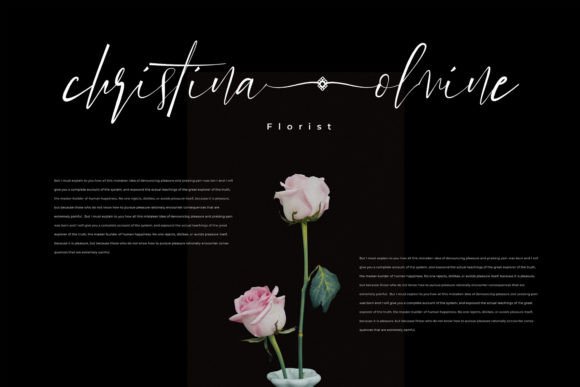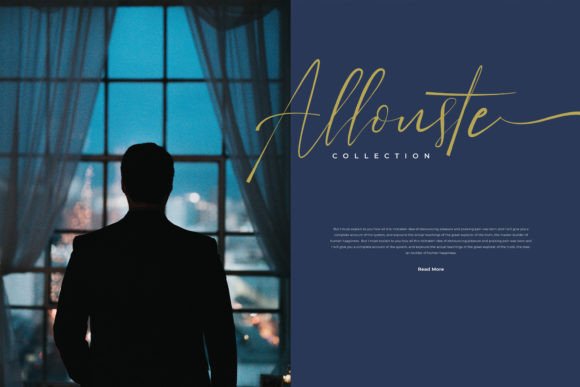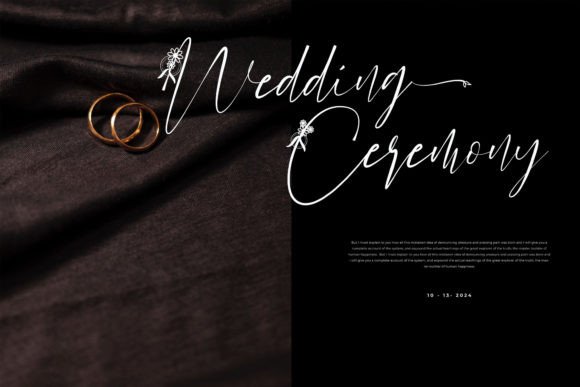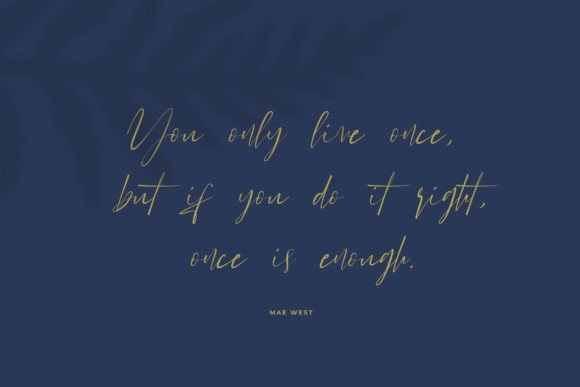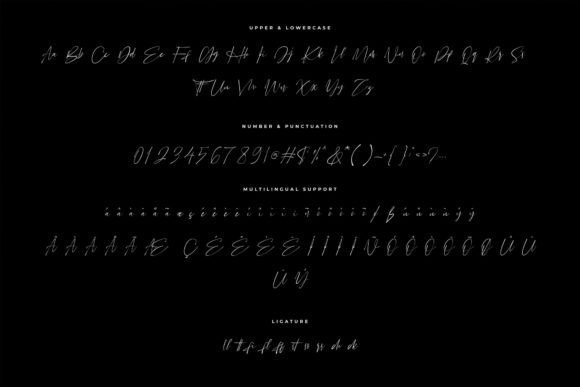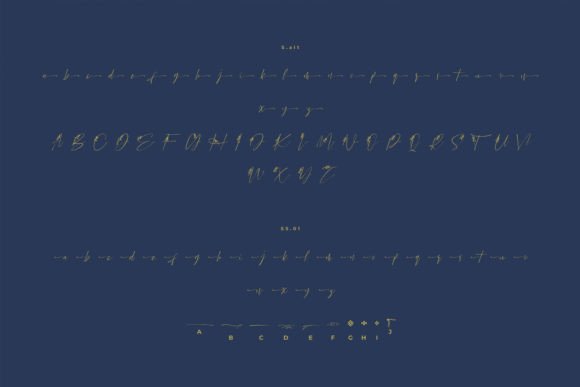
Introduction to Beralissa Font Font
Fonts play a crucial role in design, and the Beralissa Font font is a typeface that brings both character and versatility to any project. Whether you’re working on a branding project, a website, or a print design, the Beralissa Font font offers a unique style that can elevate your work.
This elegant and fun calligraphy font is a great way to add a playful touch to your next project, be it a logo, stationery, poster, or something else.
Key Features of Beralissa Font Font
Why Choose Beralissa Font Font?
The Beralissa Font font is more than just a typeface – it’s a design tool that helps you communicate your message with style and clarity. Its unique character set and versatile design make it suitable for a wide range of applications, from elegant invitations to bold headlines.
With its carefully crafted letterforms and balanced proportions, the Beralissa Font font ensures readability and visual appeal across all mediums.
What makes Beralissa Font font special?
The Beralissa Font font stands out with its unique design, exceptional readability, and versatility across various design applications.